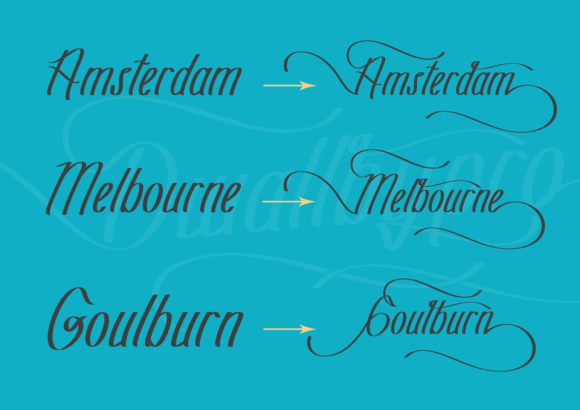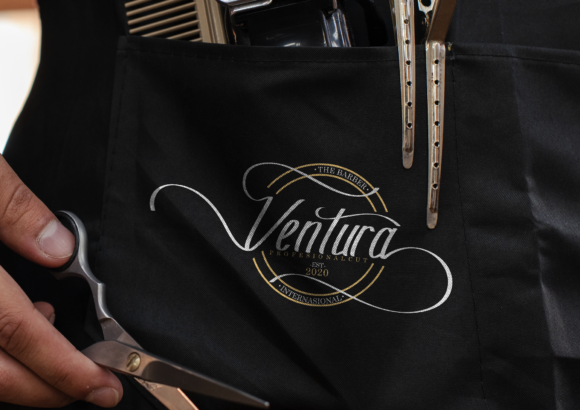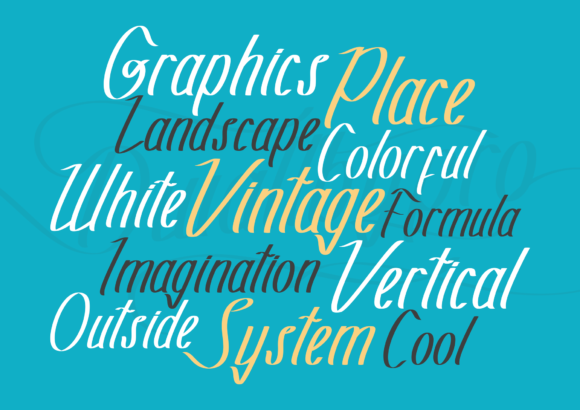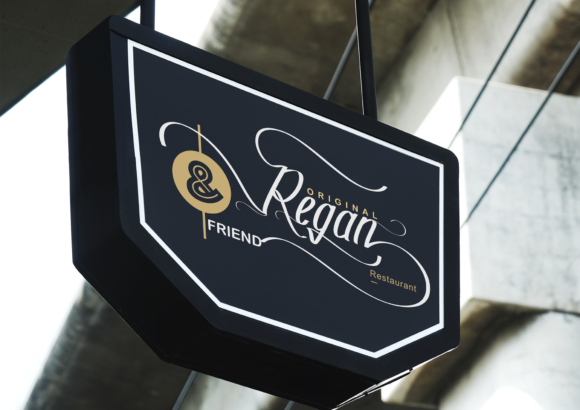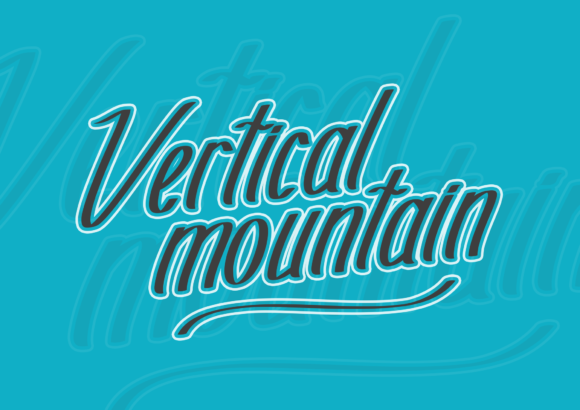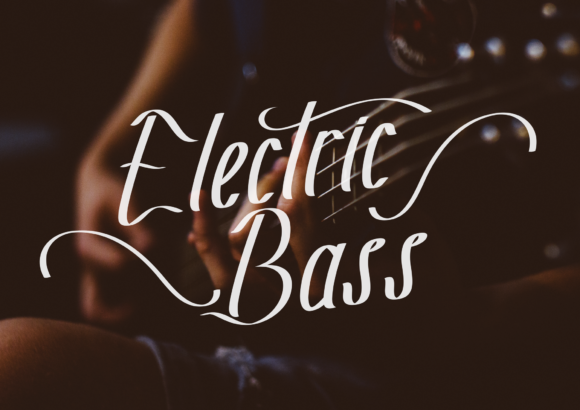
Discover the Elegance of Dwallbypro Font: A Stylish Homage to Classic Calligraphy
In the world of typography, few fonts manage to capture the essence of classic calligraphy while infusing it with a modern twist. Dwallbypro font is one such gem that has been making waves among designers and crafters alike. This stunning script font is not only charming and elegant but also versatile, making it perfect for a wide range of creative projects.
The Characteristics of Dwallbypro Font
Dwallbypro feels equally charming and elegant, and its features are a testament to its beauty. Some of the key characteristics that make this font stand out include:
- Varying Baseline: Unlike traditional fonts that adhere to a strict baseline, Dwallbypro boasts a varying baseline that adds a touch of organic elegance to any design.
- Smooth Lines: The font features smooth, flowing lines that are reminiscent of traditional calligraphy. This smoothness ensures that the text is not only beautiful but also highly legible.
- Gorgeous Glyphs: Dwallbypro comes with a rich set of glyphs that can be used to add more flair to your designs. These glyphs can be used to create intricate patterns, add decorative touches, or simply to enhance the overall aesthetic of your project.
- Stunning Alternates: One of the standout features of Dwallbypro is its set of stunning alternates. These alternates provide you with multiple options for each letter, allowing you to create unique and personalized designs.
Uses of Dwallbypro Font
The versatility of Dwallbypro font makes it suitable for a wide range of applications. Here are some of the most popular uses of this beautiful font:
- Wedding Invitations: The elegant and charming nature of Dwallbypro makes it perfect for wedding invitations. It can help set the tone for a sophisticated and memorable event.
- Stationary Art: Whether you’re creating custom stationery, notebooks, or journals, Dwallbypro can add a touch of elegance and sophistication to your designs.
- Social Media Posts: In a world where social media dominates our lives, Dwallbypro can help you stand out from the crowd. Use it to create eye-catching social media posts that are sure to grab attention.
- Greeting Cards: From birthday cards to thank you notes, Dwallbypro can help you create cute and personalized greeting cards that are sure to delight.
Tips for Using Dwallbypro Font
To get the most out of Dwallbypro font, here are some tips to keep in mind:
- Experiment with Alternates: Don’t be afraid to experiment with the different alternates provided by Dwallbypro. This can help you create unique and personalized designs.
- Mix and Match: Dwallbypro can be paired with a variety of other fonts to create stunning contrast effects. Experiment with different font combinations to find the perfect match.
- Pay Attention to Spacing: As with any font, spacing is crucial when using Dwallbypro. Make sure to adjust the spacing to ensure that your text is easy to read and visually appealing.